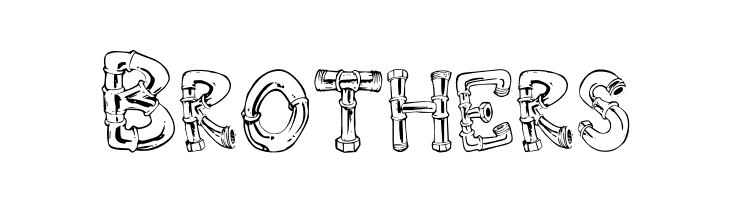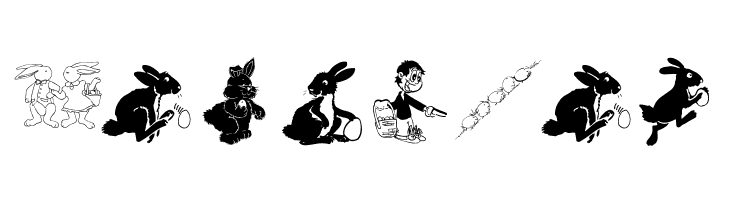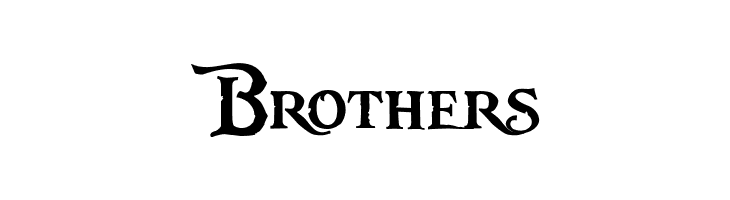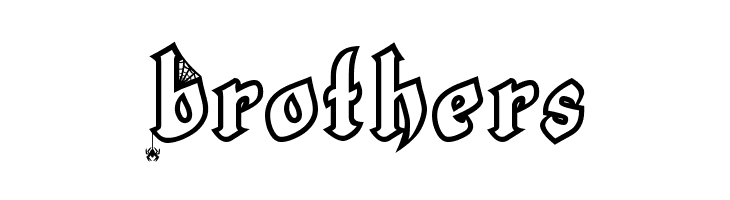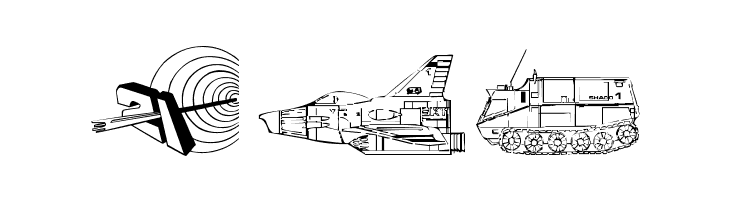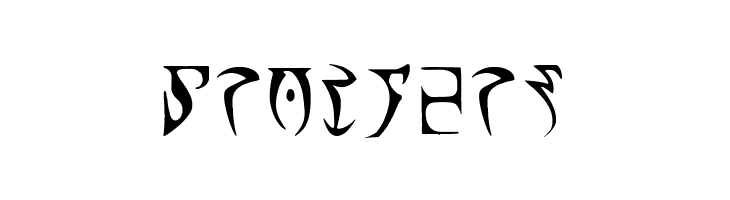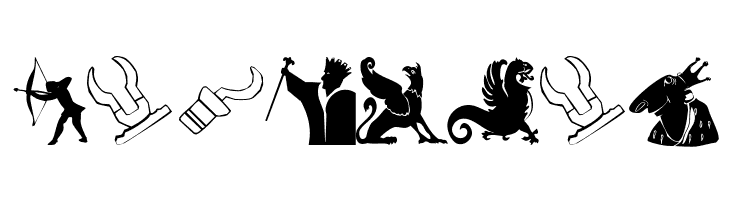
Decorative dingbat font with Easter-themed illustrations.
A decorative, futuristic font with bold, geometric symbols inspired by a distant galaxy theme.
A bold, adventurous font with sharp serifs and a distressed appearance, perfect for pirate-themed projects.
A bold, gothic font with decorative elements like spider webs and bats, perfect for spooky themes.
Science fiction-themed pictogram and icon set with technical illustrations.
Medieval-themed dingbat font with detailed silhouette illustrations.
A whimsical set of space-themed illustrations and characters with a playful, cartoonish style.
A decorative dingbat font with nautical and pirate-themed illustrations.
Western-themed pictogram font with detailed illustrations for each character.
Cycling-themed pictogram font with playful illustrations.
A maritime-themed decorative dingbat font with pirate ships and nautical icons.
Military-themed dingbat font with vehicle and equipment silhouettes.
A decorative font inspired by medieval and knightly themes, featuring intricate and ornate designs.
A decorative set of desert-themed symbols with intricate, bold designs.
A bold military-themed dingbat font featuring detailed equipment icons.
A weather-themed decorative icon set with playful, illustrative symbols.
Automotive-themed pictorial display font using car parts and tools for each character.
A playful set of sci-fi and fandom-themed dingbats with a cartoonish, hand-drawn style.